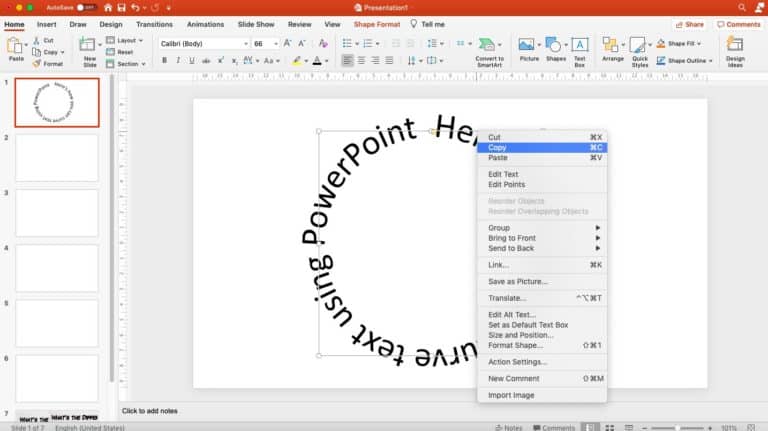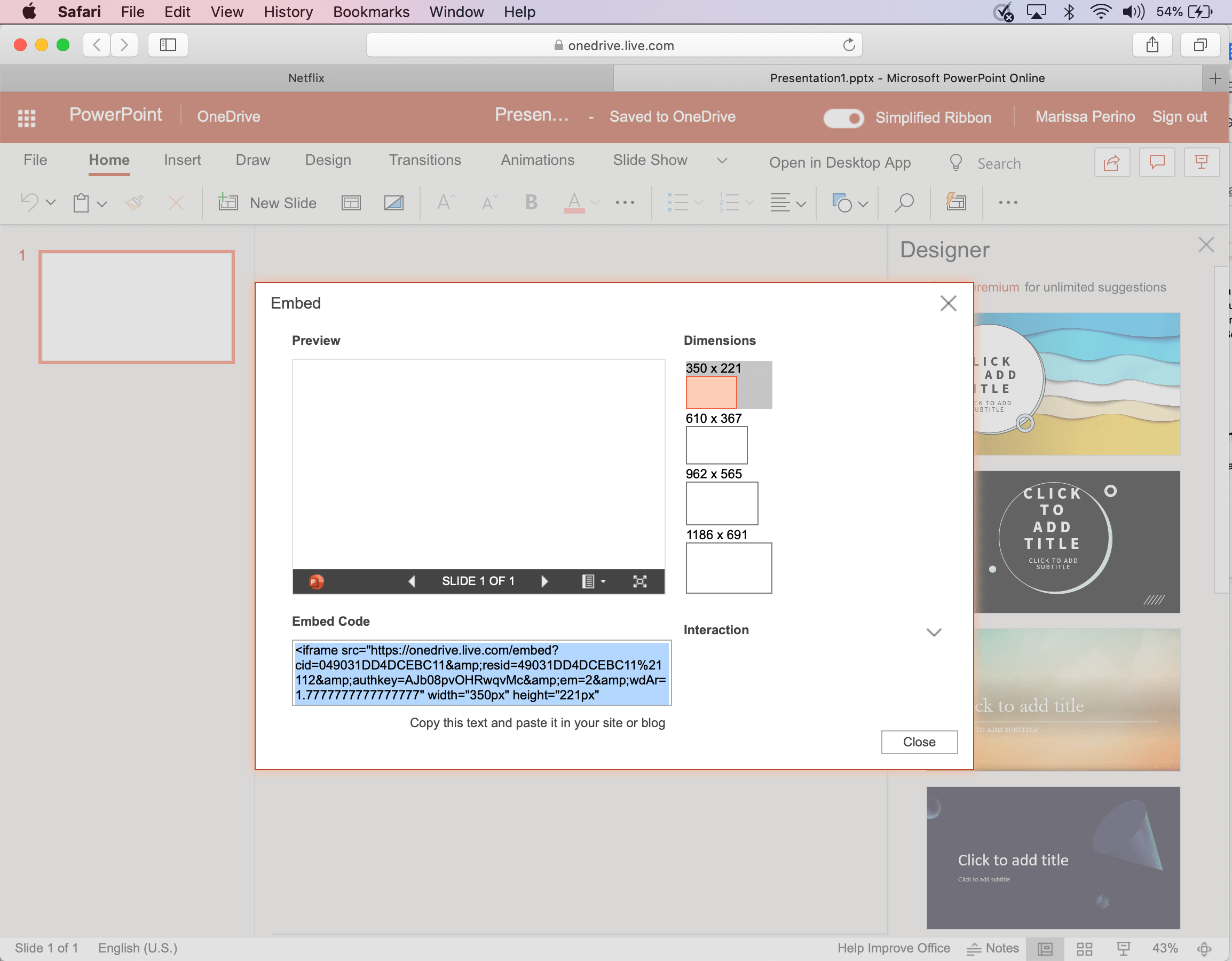
A quick primer on these terms: Clicking options on the file tab. This can help to make awesome presentations using unique and modern open source fonts in your projects and powerpoint presentations. Serif fonts are excellent choices for slide titles at a much bigger size. How to Add a Bullet Point in PowerPoint 6 Steps (with Pictures).
How to install fonts in microsoft office on mac osx. Google fonts is a collection of free licensed font families. Clicking options on the file tab. My favorite serif fonts for readability are droid serif, lora and roboto slab.; How to share your Microsoft PowerPoint presentation on a Mac, PC, or.
In the save as type list, select powerpoint presentation, and save the file. How do i install a new font in ms powerpoint? This can help to make awesome presentations using unique and modern open source fonts in your projects and powerpoint presentations. Unzip the font file if necessary. Google slides Free Checklist template.
Clicking options on the file tab. To add fonts to google slides, select a text box and click on the “fonts” option in the toolbar. In microsoft word, you would use a google font the same way that you use any other font. Google fonts is a collection of free licensed font families. How to Highlight Text in Any Version of PowerPoint.
If you check “embed fonts in. 3.before opening the update package, delete the application. Go into one of the office apps and choose help > check for updates at the top of the screen. I like sans serif fonts for subtitle and. How To Add Voice To Google Slides On Mac.
Themes, templates, masters, and layouts. Serif fonts are excellent choices for slide titles at a much bigger size. Clicking options on the file tab. To select a font family, press the ⊕ button alongside it.